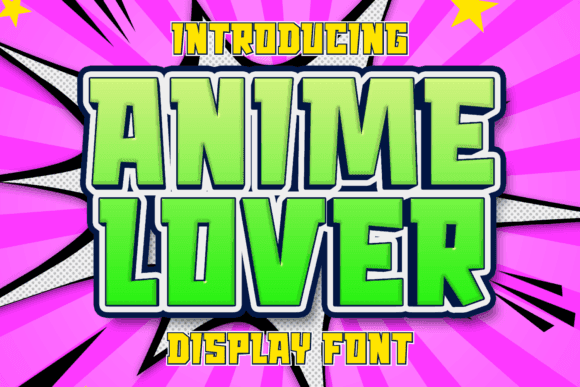
Anime Lover Font
Anime Lover is a dynamic superhero display comic font that captures the essence of classic comic book aesthetics with its bold, energetic, and playful design. While ideal for comic-related projects, this font is also versatile enough to be used in a variety of other contexts where a bold, fun, and dramatic look is desired.